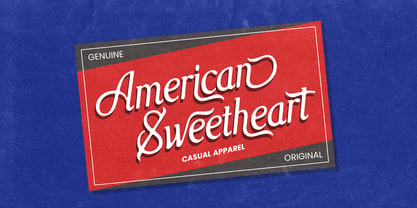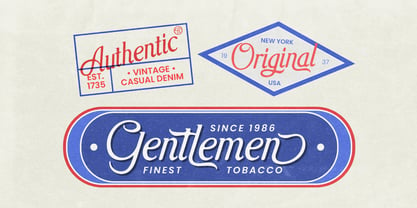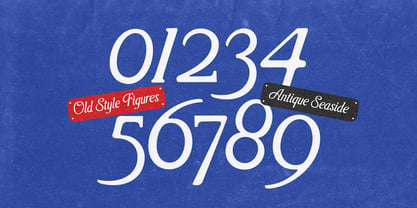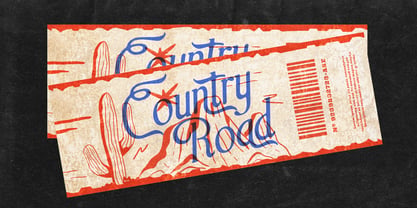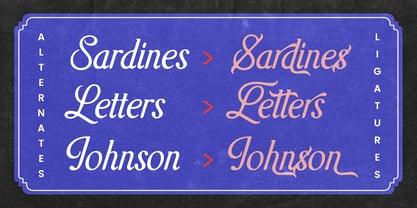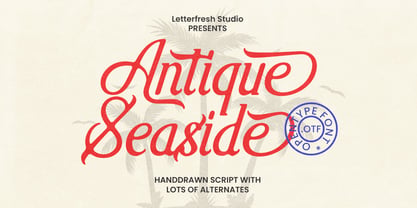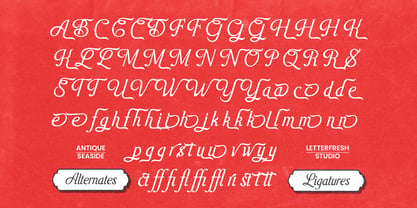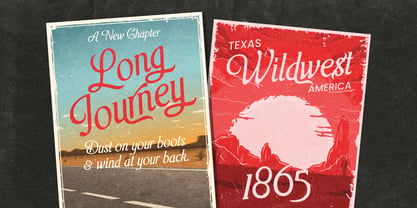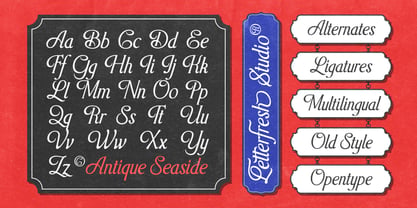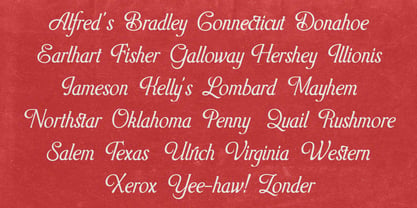
Antique Seaside
by Letterfreshstudio
The Antique Seaside Font Family was designed by Rizki Andika and published by Letterfreshstudio. Antique Seaside contains 1 styles. More about this family
Antique Seaside is a bold, bold serif font designed to make a bold and confident statement. With its robust letterforms, sharp serifs, and balanced proportions, Antique Seaside delivers a classic yet modern aesthetic perfect for branding, editorial design, logos, headlines, packaging, posters, and sports-themed projects. Inspired by vintage typography with a contemporary twist, Antique Seaside combines elegance and strength in every character. Its bold weight ensures high legibility while maintaining a stylish and premium feel. Whether you're creating a luxury brand identity, an athletic campaign, or an eye-catching social media graphic, Antique Seaside delivers the visual impact your design needs. The font includes over 300 glyphs and multilingual support, making it versatile for global projects. Crafted with meticulous attention to detail, Antique Seaside brings personality, authority, and timeless charm to every layout. Perfect for designers who want a bold serif font that stands out with confidence and sophistication.
Designers: Rizki Andika
Foundry: Letterfreshstudio